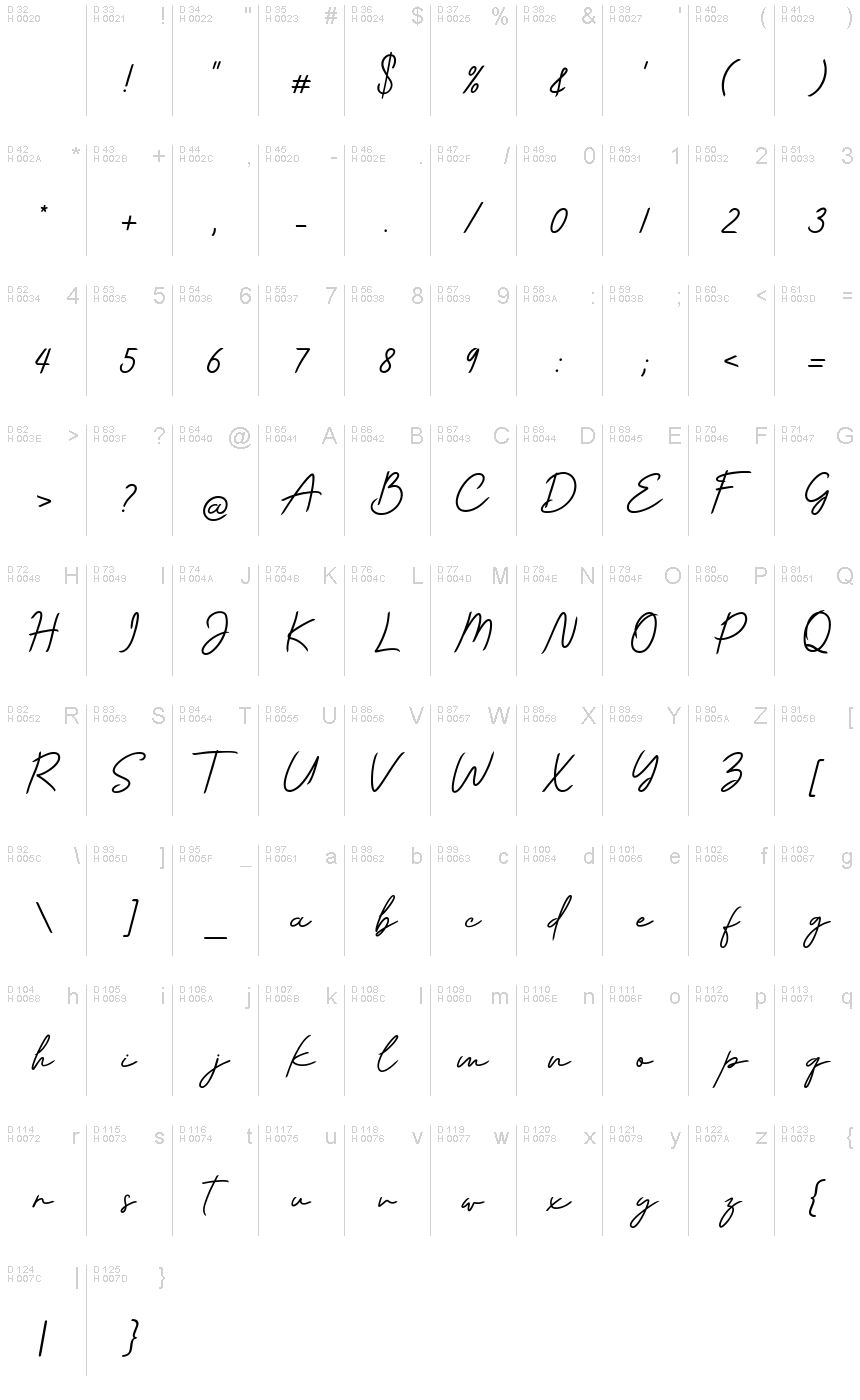
Andiela Sathony Script
Andiela Sathony Script font designed by UI Creative is an informal free handwritten script font whose finesse is expressive in every letter and typeface feature. The font manages to stay light in its sketch yet elegant, lively, and flowing as it connects with one stroke to another.